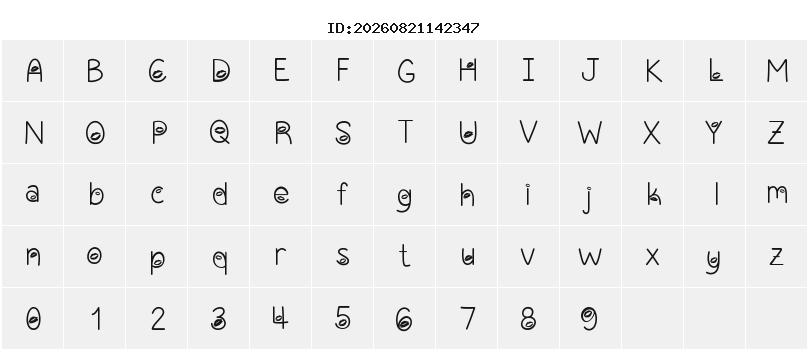
Sealed With A Kiss Preview
• Font Name: Sealed With A Kiss
• Font ID: Vanessa Bays - Sealed With A Kiss
• Full Font Name: Sealed With A Kiss
• PostScript Name: SealedWithAKiss
• Character Count: 200
About Sealed With A Kiss.ttf
Sealed With A Kiss.ttf is a modern, elegant sans-serif font designed for ultimate readability and visual harmony. Perfect for branding, headlines, web design, and print materials.